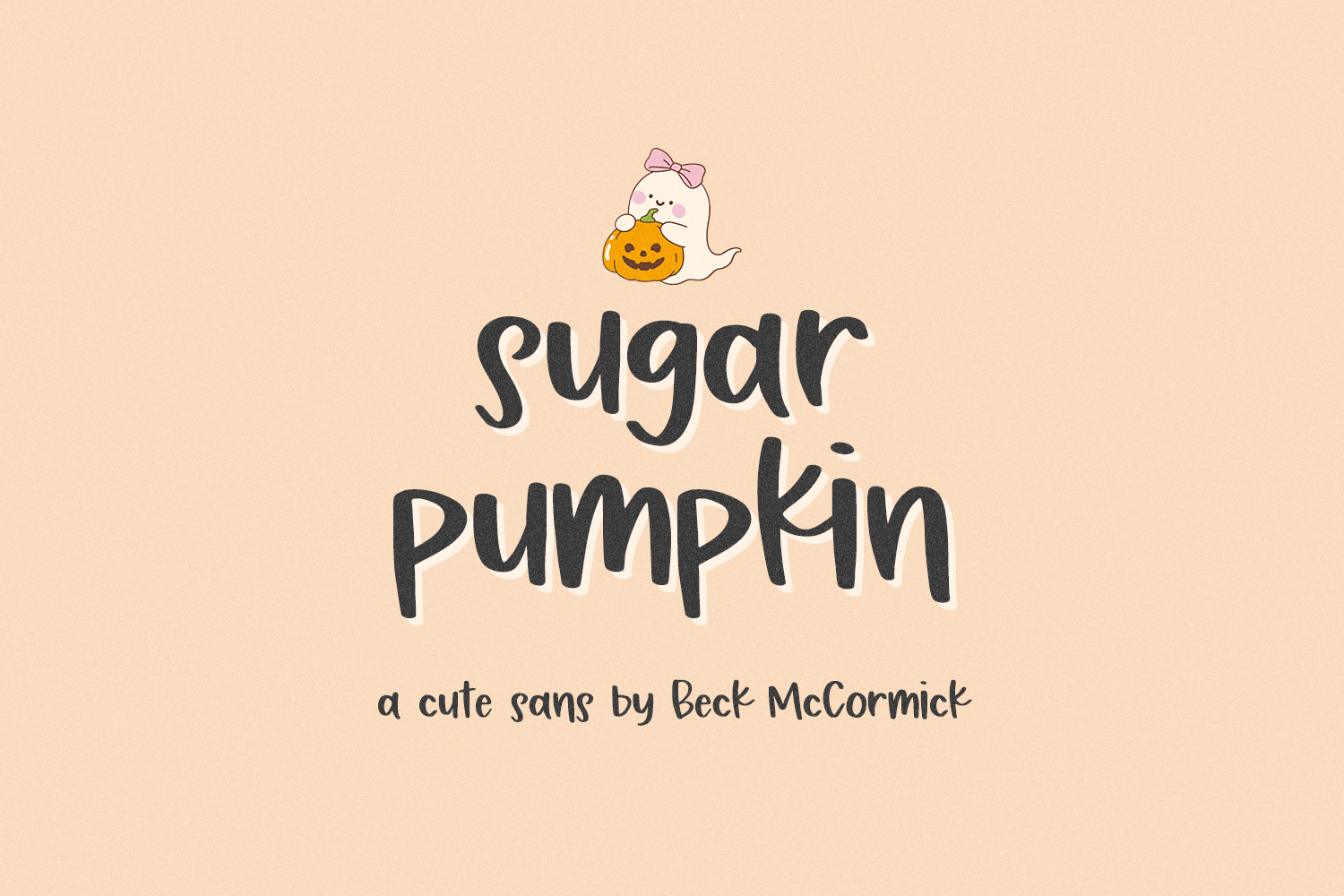
Sugar Pumpkin Sans Font
Sugar Pumpkin Sans is a neat & tidy hand lettered font. It’s the perfect fit for your digital planner or note-taking app, and is super legible with just enough thickness. Sugar Pumpkin will be a great fit for your cute home decor projects, your Cricut or Silhouette machine, or logo & branding projects, as well as social media or marketing graphics. You might even enjoy this font as a Kindle font, especially if you have little readers in your home.